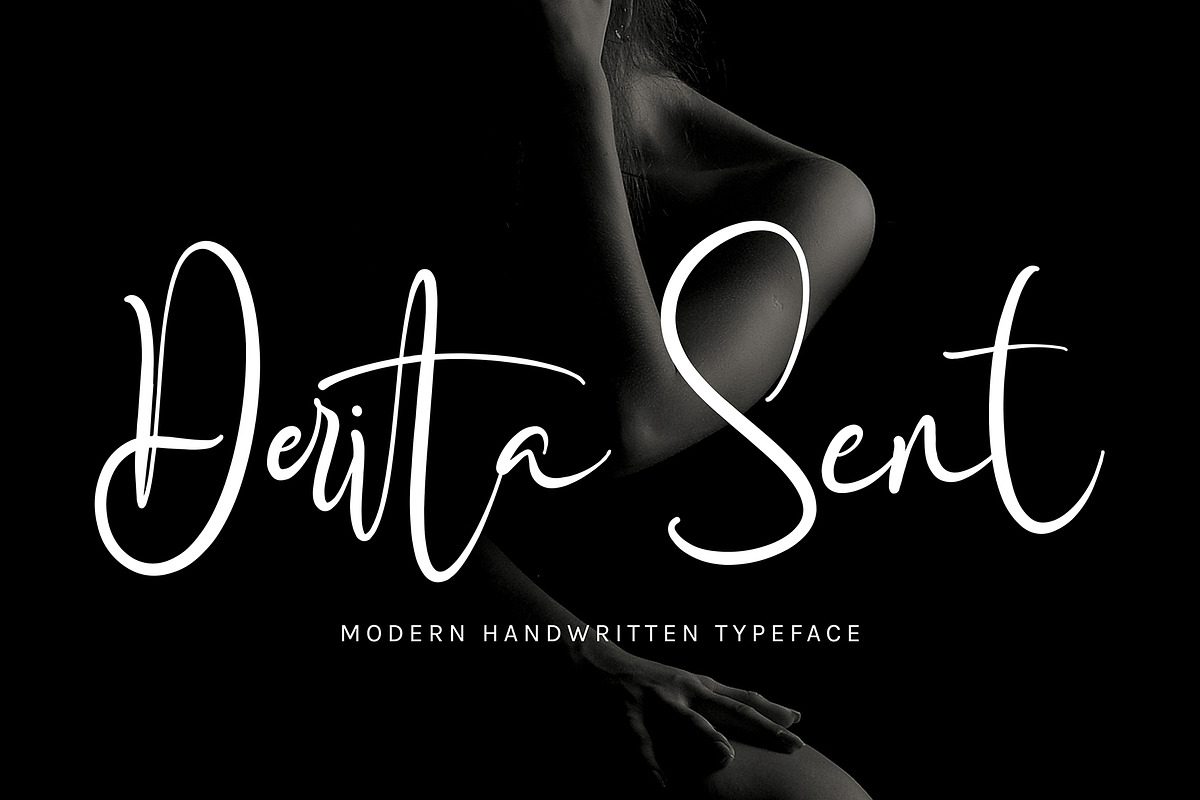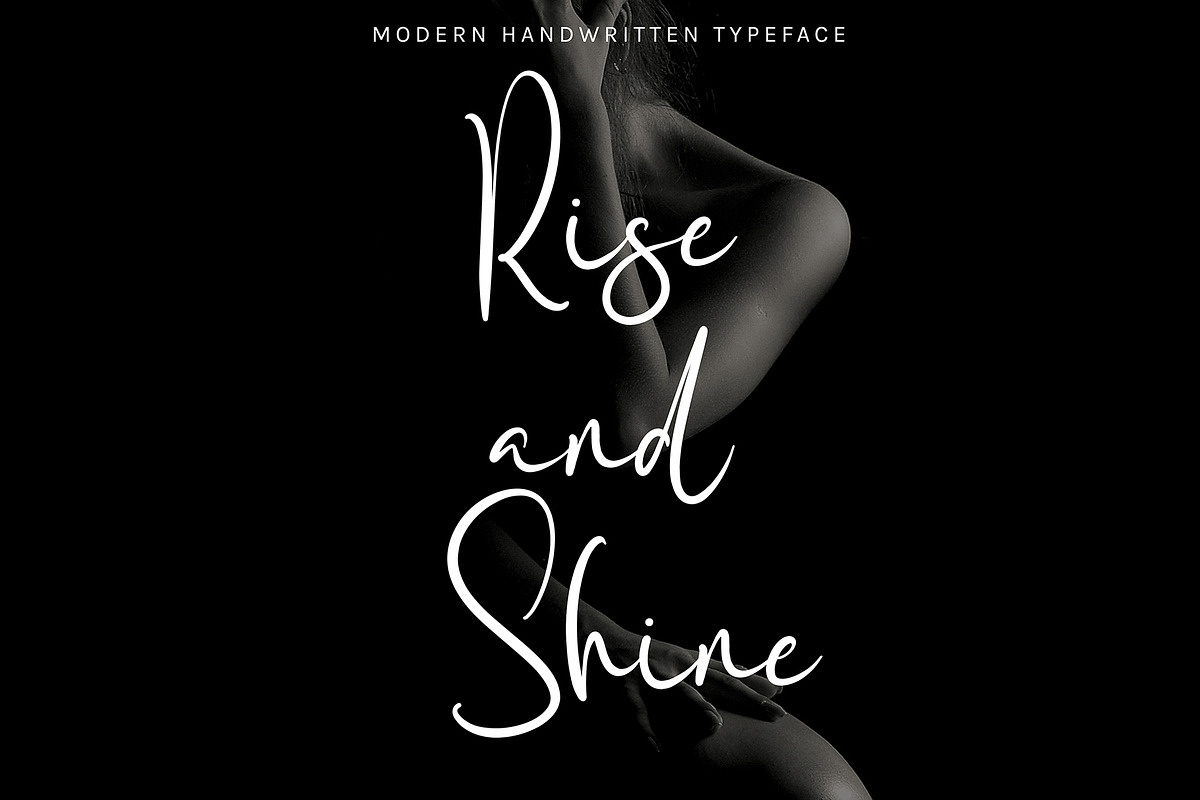
Darita Sent
Darita Sent font with new style, this font will perfect for many different project ex: quotes, logo, blog header, poster, banding, letter, invitation, stationery, etc...